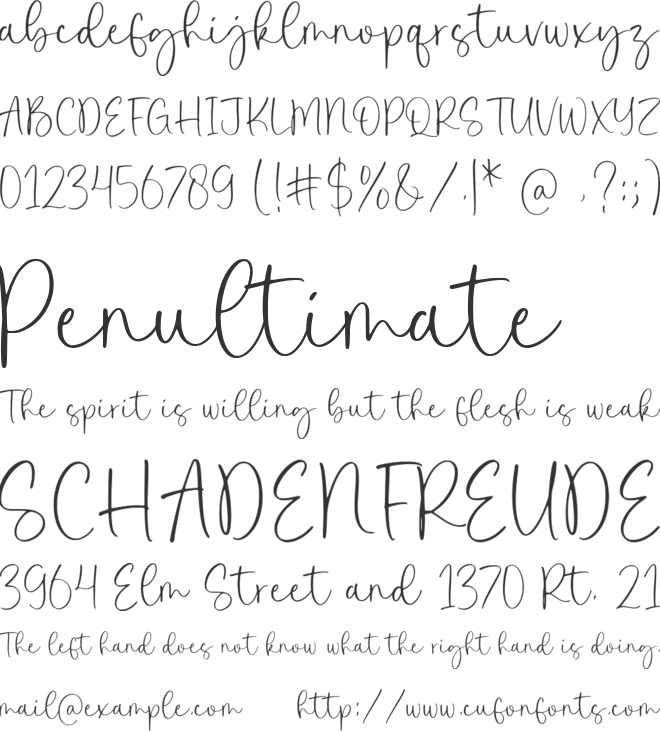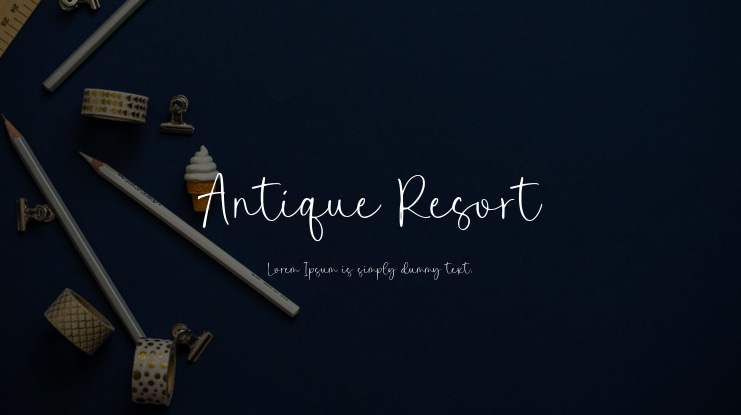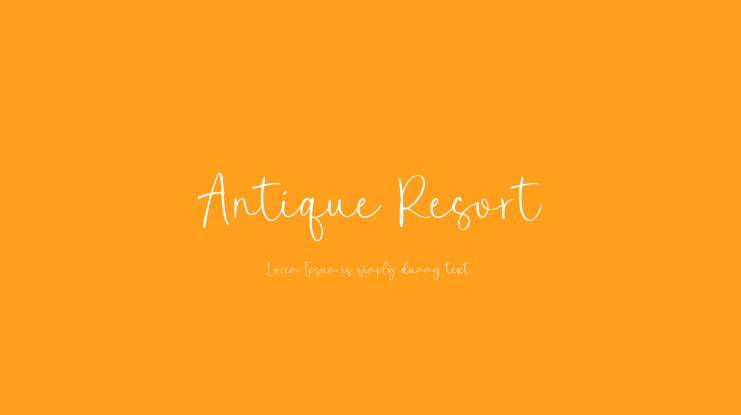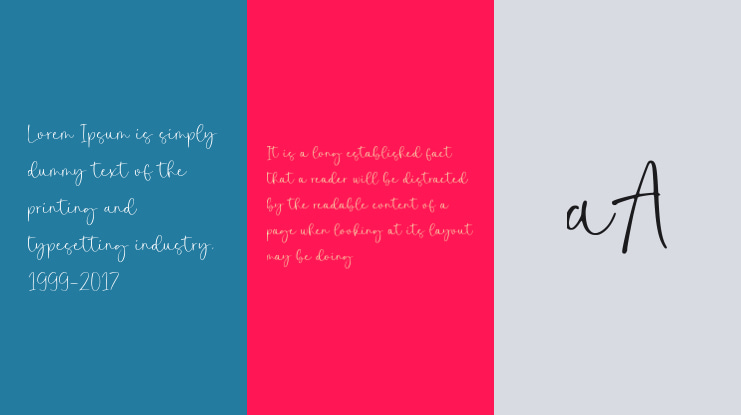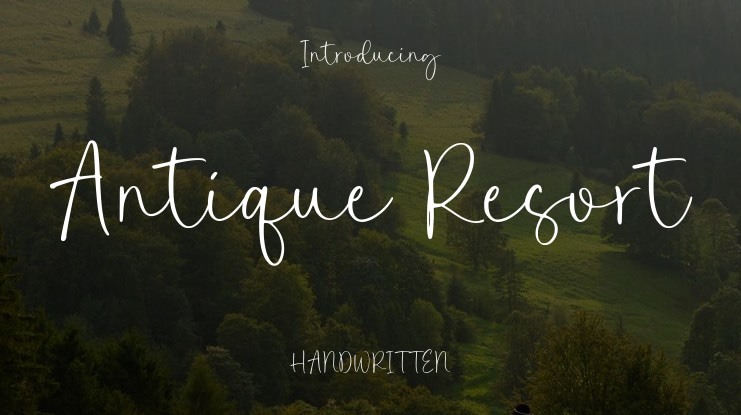
Antique Resort Font
Antique Resort is a Beautiful Calligraphy Font that's perfect for adding a touch to your design projects! With its natural, organic feel and unique character.
Crafted with care and attention to detail, this font is incredibly versatile and can be used for a range of design projects, including logos, branding, invitations, and more. Its modern, handwritten style gives it a unique character that's sure to make an impact.
- also multilingual support